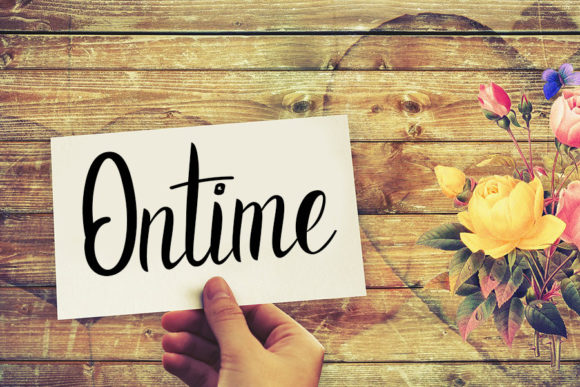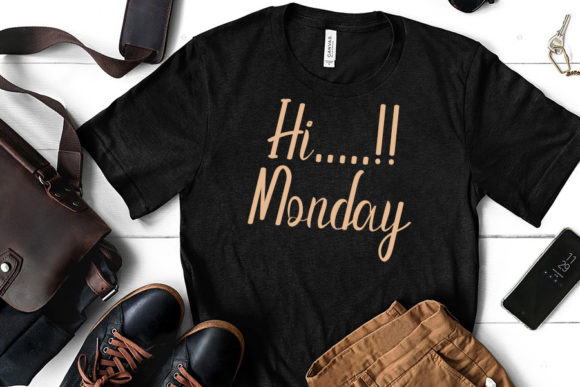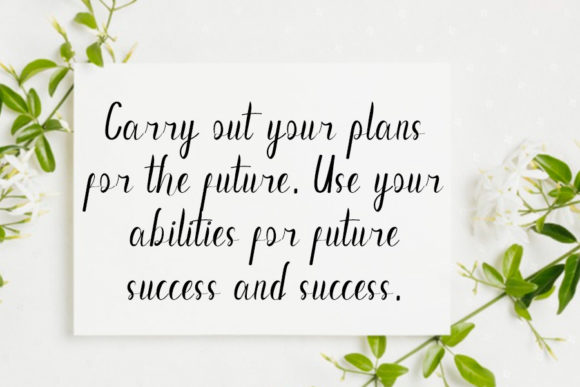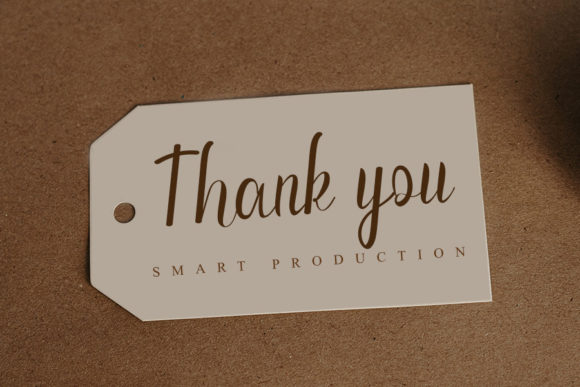
Introducing Anggeliya Font: Add a Touch of Whimsy to Your Designs
Are you tired of using the same old fonts in your designs? Look no further than Anggeliya Font, a lovely script font that is sure to add a touch of whimsy to your creative projects. With its charming, playful characters that seem to dance along the baseline, Anggeliya Font is the perfect choice for designers and crafters looking to make their work stand out.
The Characteristics of Anggeliya Font
Anggeliya Font is a script font that boasts a range of beautiful, flowing characters that are sure to capture the eye. Its charming and playful design makes it perfect for a variety of creative projects, from invitations and greeting cards to posters and social media graphics. The font features:
- Charming, playful characters that seem to dance along the baseline
- A flowing script design that adds a touch of elegance to any project
- A wide range of characters, including uppercase and lowercase letters, numbers, and punctuation marks
Why Choose Anggeliya Font?
So why choose Anggeliya Font for your next design project? Here are just a few reasons why this font is a great choice:
- Unique and eye-catching design: Anggeliya Font is a one-of-a-kind font that is sure to grab attention. Its playful characters and flowing script design make it perfect for designers looking to create something truly unique.
- Versatile: Anggeliya Font can be used for a wide range of creative projects, from formal invitations to social media graphics.
- Easy to read: Despite its playful design, Anggeliya Font is easy to read, making it perfect for use in body text as well as headings.
How to Use Anggeliya Font in Your Designs
Anggeliya Font is easy to use in a variety of design projects. Here are a few ideas to get you started:
- Invitations and greeting cards: Anggeliya Font is perfect for creating beautiful, one-of-a-kind invitations and greeting cards.
- Posters and flyers: Add a touch of whimsy to your posters and flyers with Anggeliya Font.
- Social media graphics: Use Anggeliya Font to create eye-catching social media graphics that are sure to grab attention.
- Branding and packaging: Anggeliya Font can also be used for branding and packaging, adding a touch of personality to your products.
Tips for Getting the Most Out of Anggeliya Font
Here are a few tips for getting the most out of Anggeliya Font:
- Experiment with different colors and textures: Anggeliya Font looks great in a variety of colors and textures, so don’t be afraid to experiment and find the combination that works best for your project.
- Use it sparingly: While Anggeliya Font is beautiful, it can be overwhelming if used too much. Use it sparingly to add a touch of whimsy to your design.
- Pair it with other fonts: Anggeliya Font pairs well with a range of other fonts, so don’t be afraid to experiment and find the perfect combination for your project.
Anggeliya Font is a beautiful, unique script font that is sure to add a touch of whimsy to your design projects. With its charming, playful characters and flowing script design, it’s the perfect choice for designers and crafters looking to make their work stand out. Whether you’re creating invitations, posters, social media graphics, or branding and packaging, Anggeliya Font is a great choice. So why not give it a try and see the difference it can make in your designs?